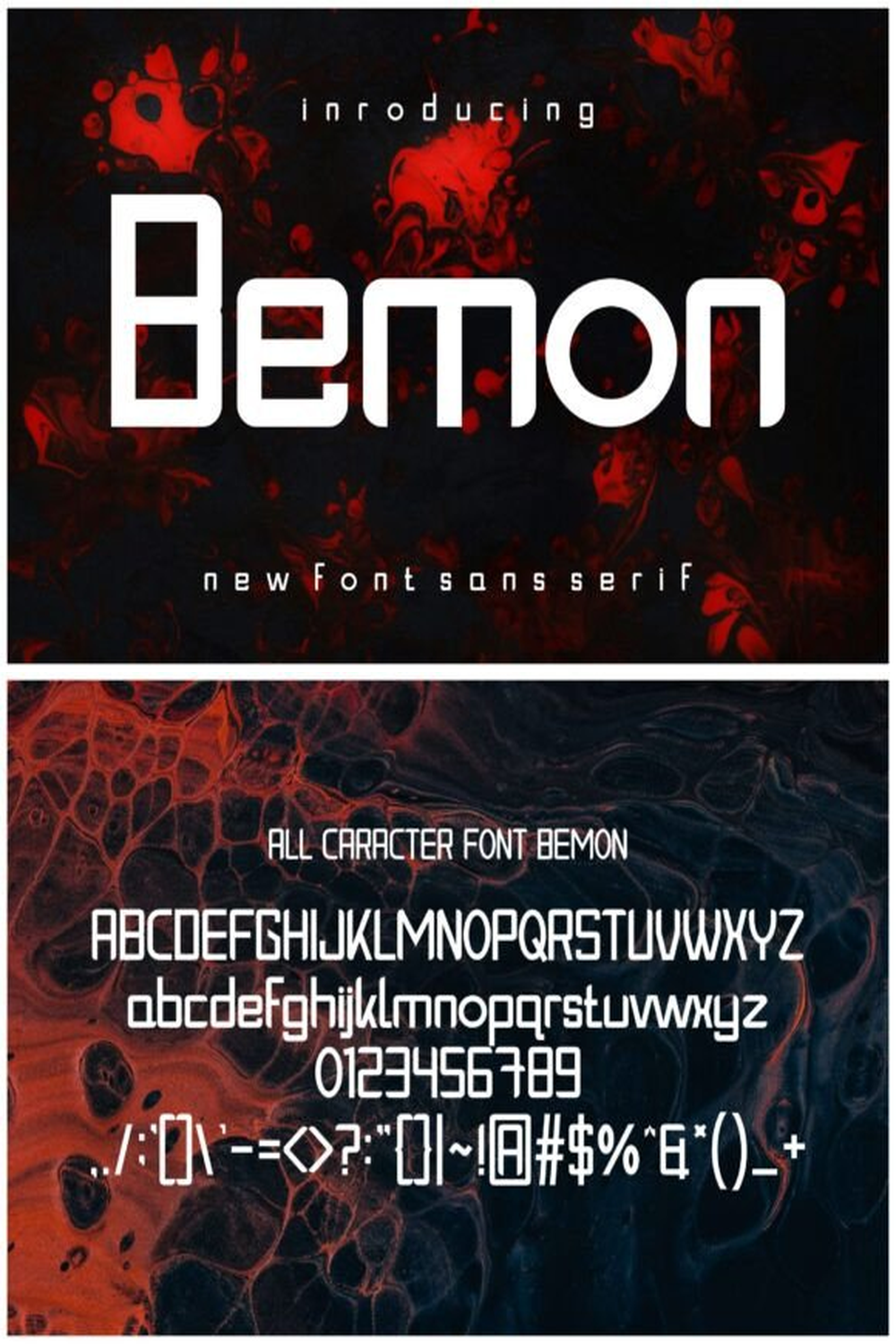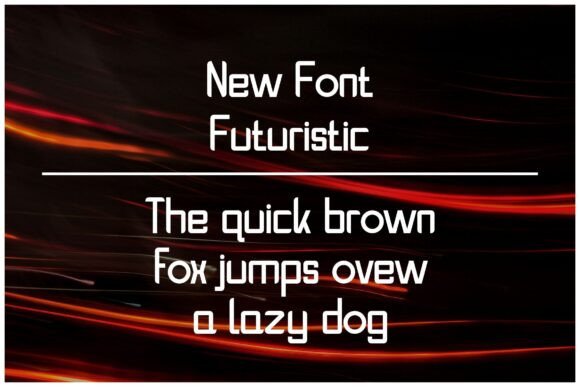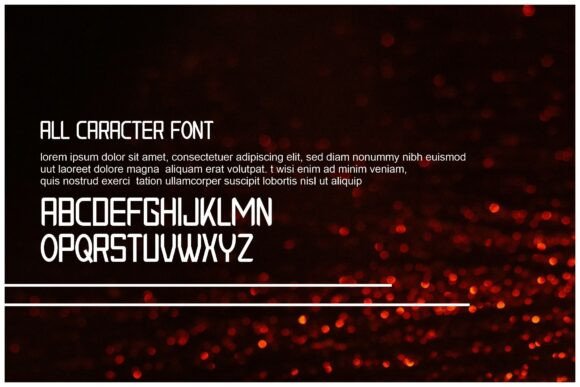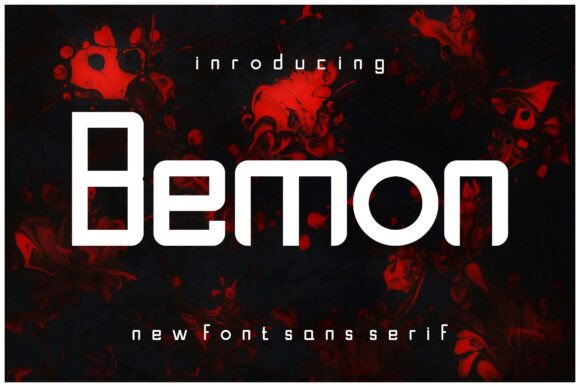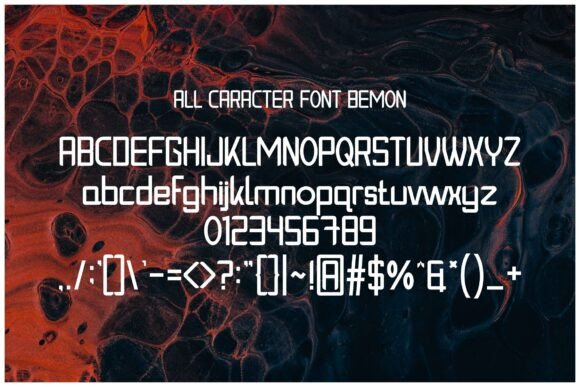
Bemon Font: Modern Sans Serif for Tech & Sci-Fi Design
About the Bemon Font
Elevate your designs with Bemon Font, a font that combines sophistication with readability. Bemo is a sans serif font with a charming touch of style. No matter the topic, this font will be an incredible asset to your fonts’ library, as it has the potential to elevate any creation.
Bemon Font Usage Examples